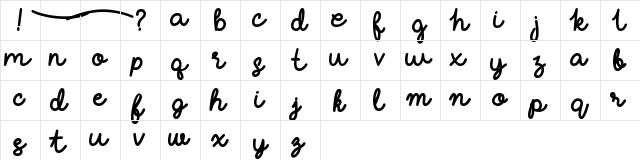
Millennial Solstice Regular
Design Context for Millennial Solstice Typeface
Millennial Solstice is a composed and adaptable typeface that performs quietly and consistently across a wide range of design contexts.